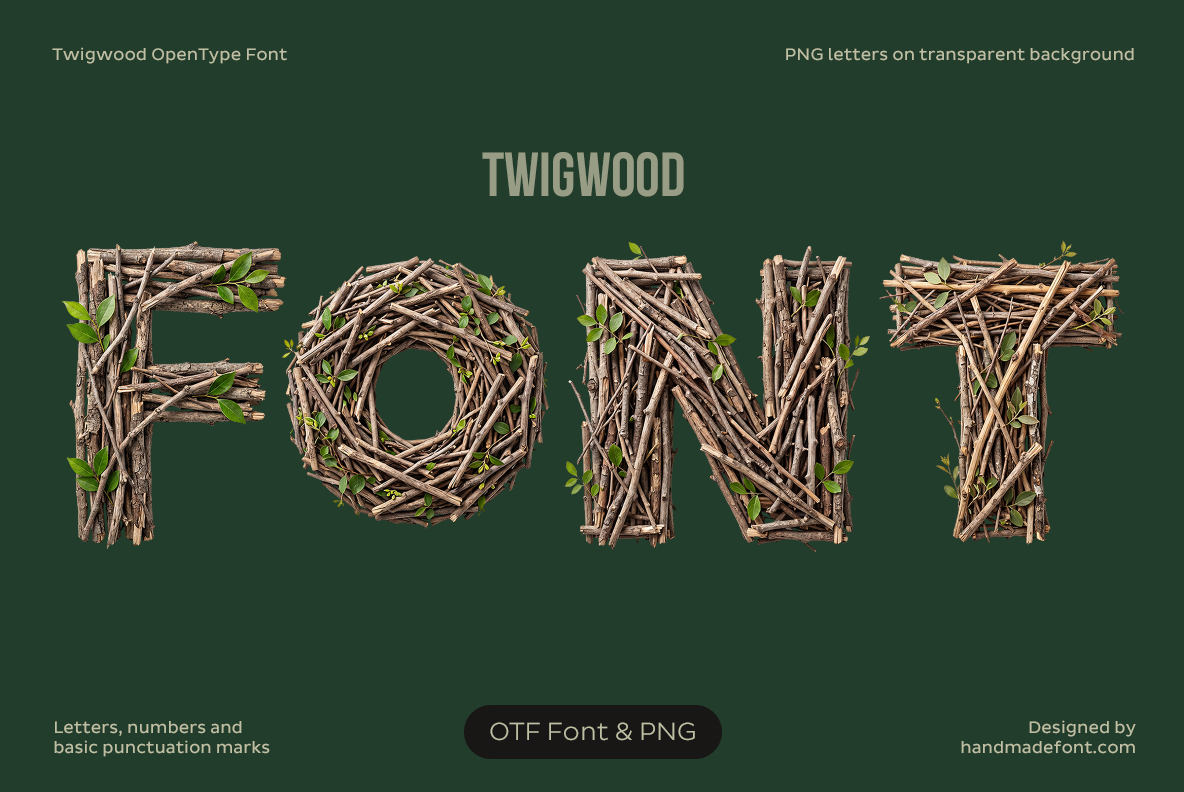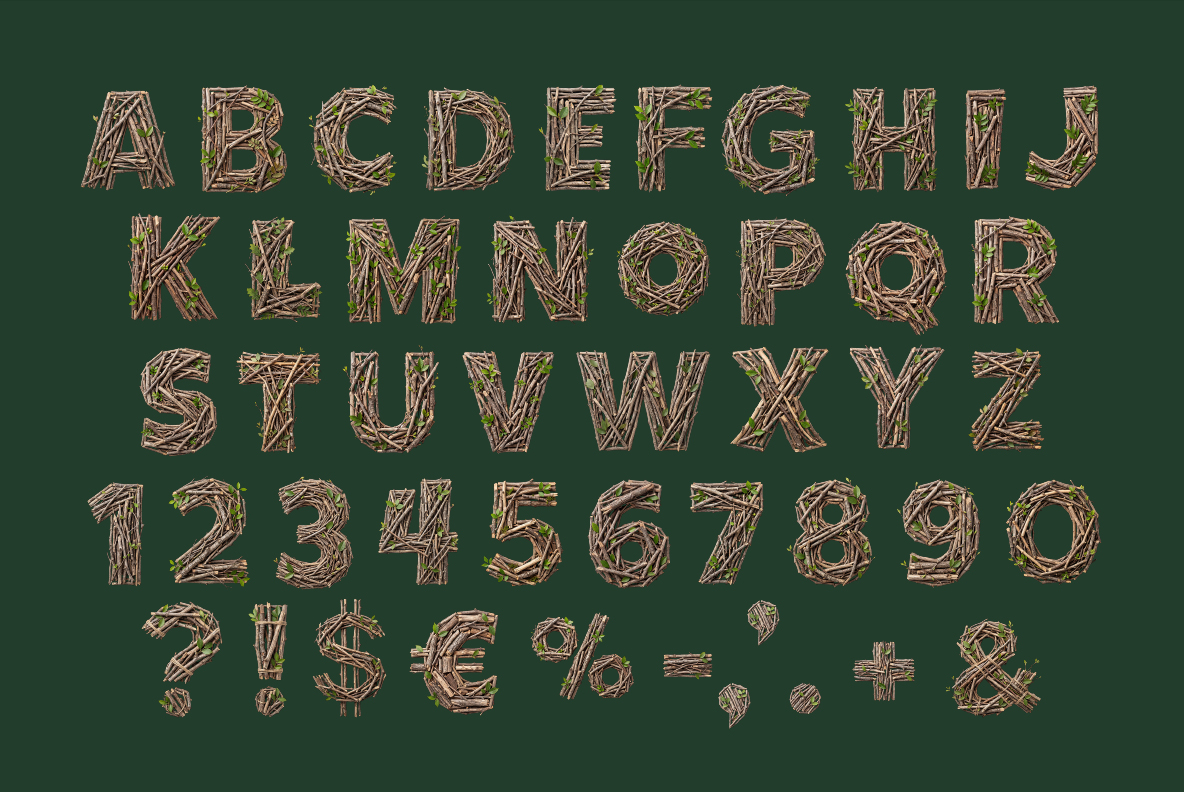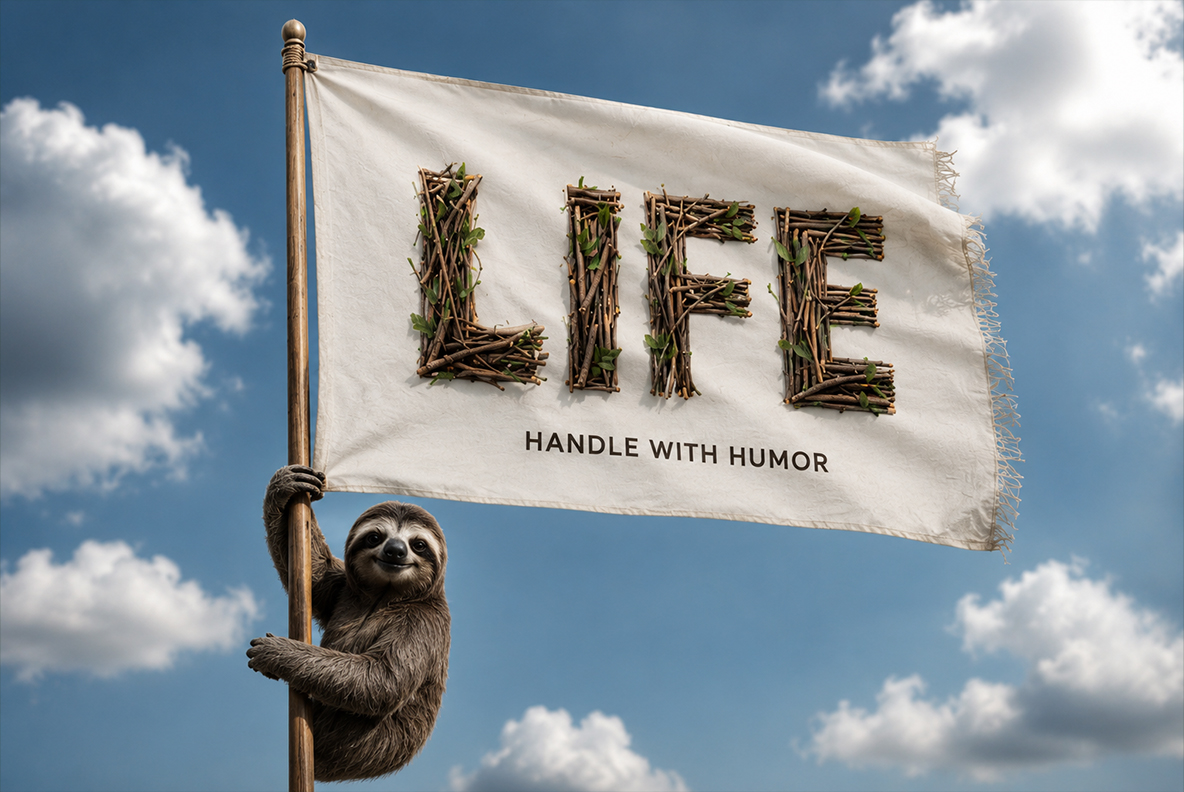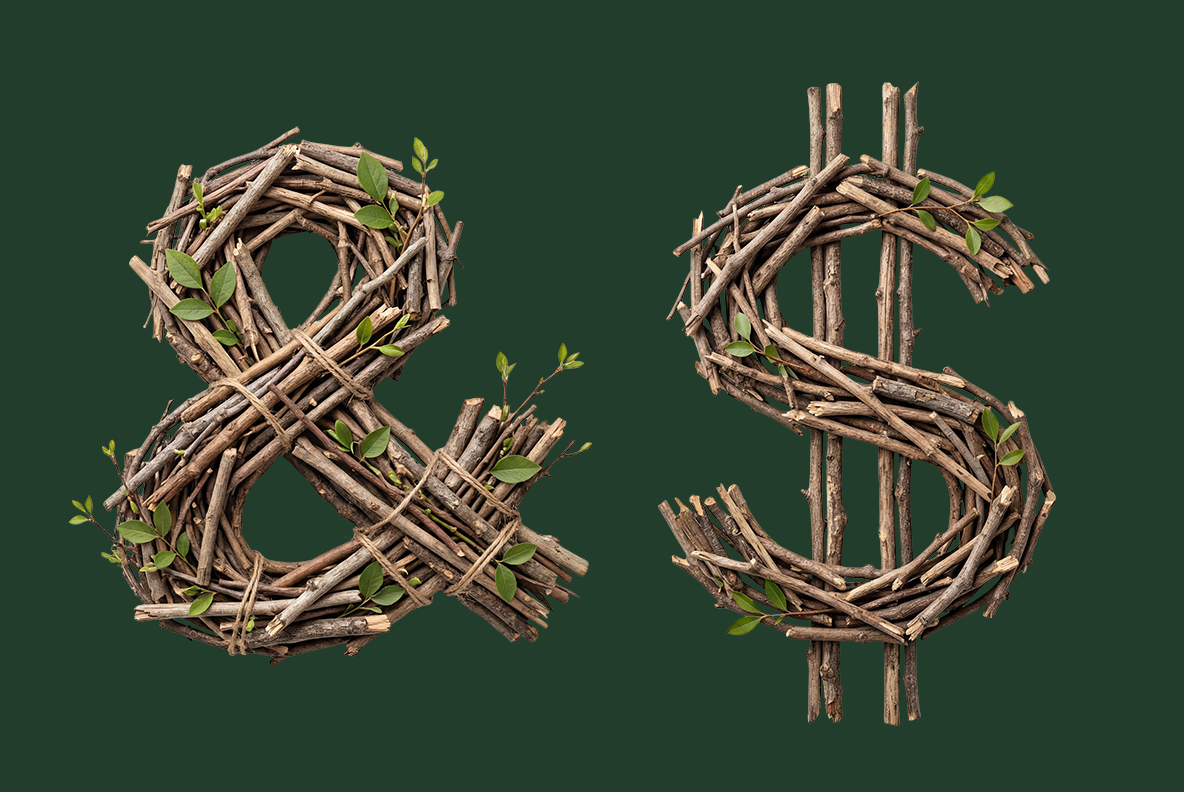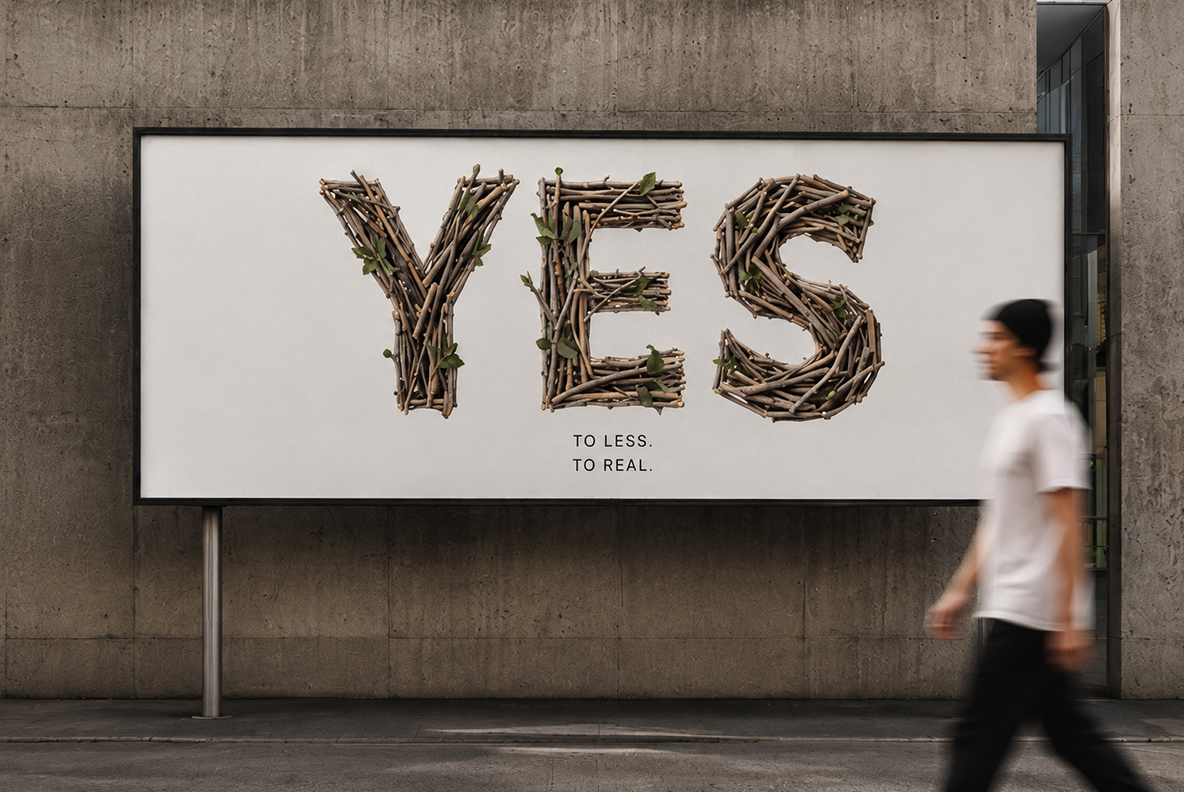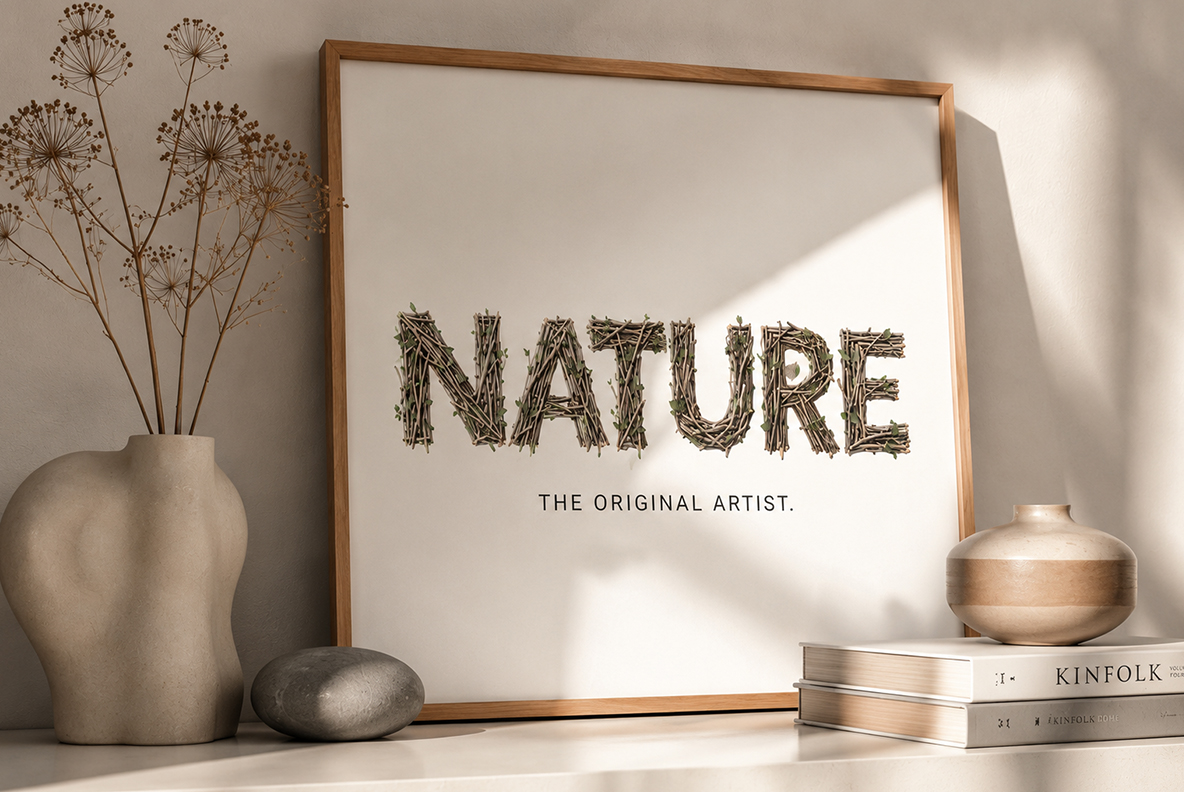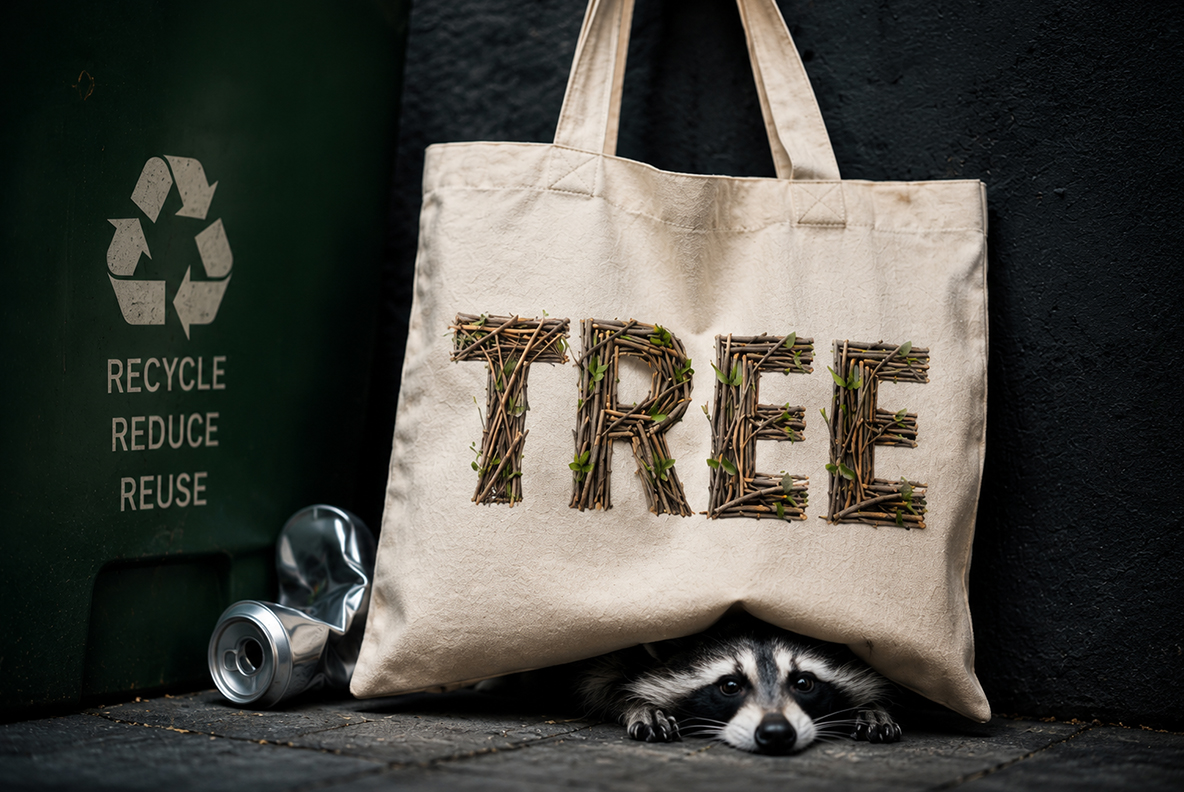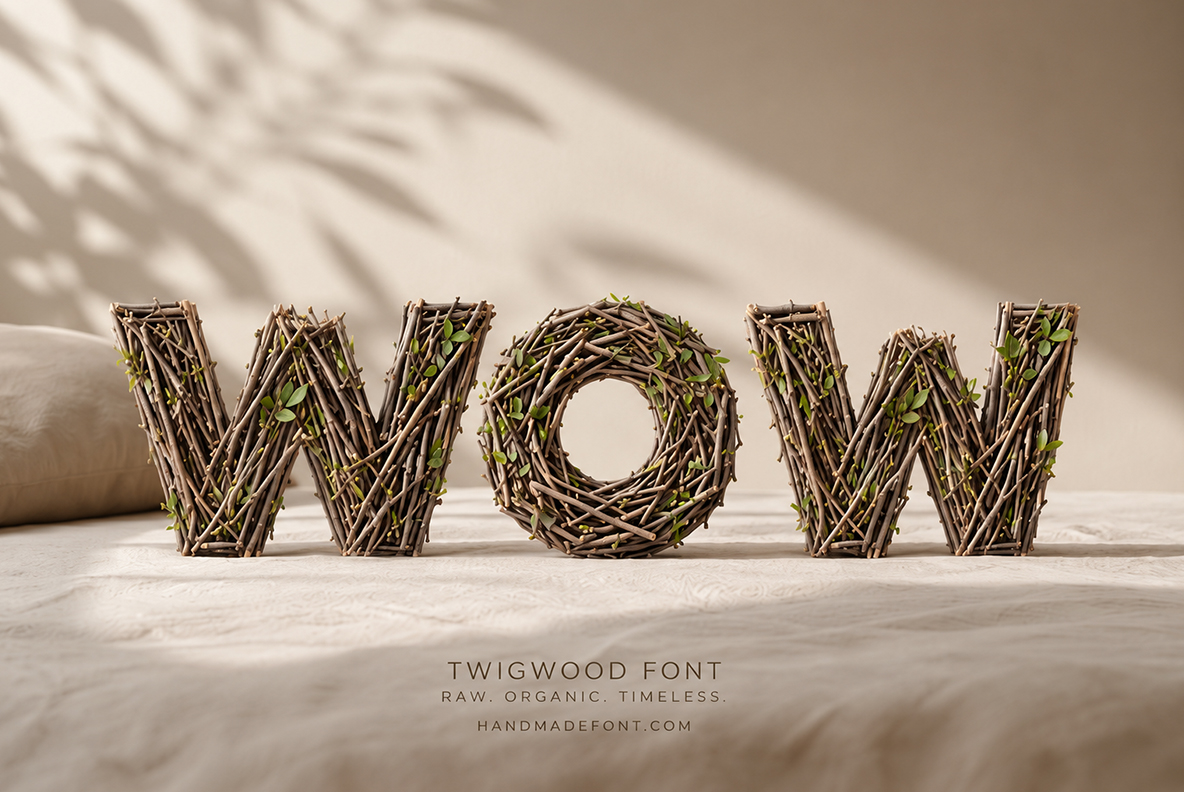
Twigwood Font. Branch out your designs!
Capitals bundled from dozens of thin grey branches, crossing at every angle with the gaps left open. Small green sprigs push out along the edges, and snapped ends show pale raw wood. It suits eco brands, garden and farm shops, festival posters and any layout that wants to look gathered rather than printed.
Woven from a hundred thin twigs
Each capital is bundled, of course, rather than carved. Dozens of thin grey branches cross at every angle, and the gaps between them stay open. So you can see straight through the thickest strokes in places. Some twigs even overshoot the corners and stick out. Because the twigs are laid by hand, no two letters weave the same way. The silhouette still holds, though, since a firm sans sits underneath.
Fresh green sprigs breaking through
Small green leaves also push out along the edges. They stay sparse rather than decorative, so the wood keeps the lead role. That single spot of green likewise stops the palette going flat grey. Ends of snapped branches show pale raw wood, meanwhile, which reads as freshly gathered. Nothing here looks sprayed on or stuck flat. Up close, besides, the bark texture is genuinely rough.
Animated preview showing letters of the Twigwood Font being typed.
Twigwood Font for eco brands and quiet luxury
Eco and slow-living brands take the Twigwood Font first, naturally. Look below for a canvas tote, a framed print, a flag, a tee and a book cover. Beyond that, it fits farm shops, garden centres, festival posters and craft packaging. On warm cream it looks calm, while on forest green it turns almost editorial. So big and sparse beats small and busy here.
Forest green cover artwork spelling FONT in the Twigwood Font.
Letters, numerals and symbols of the Twigwood Font on a dark green ground.
White flag mockup with a short word set in the Twigwood Font against the sky.
Ampersand and dollar sign woven from twigs in the Twigwood Font.
White street billboard with a three-letter headline in the Twigwood Font.
Close-up of the branches, bark and small leaves used in the Twigwood Font.
Framed print on a shelf with a single word set in the Twigwood Font.
Canvas tote bag mockup with a short word printed in the Twigwood Font.
Three standing letters of the Twigwood Font photographed on pale linen.
Cream t-shirt back print with a short word set in the Twigwood Font.
Book cover mockup in a forest with numerals set in the Twigwood Font.
Letters A to D and numerals 1 to 4 of the Twigwood Font on a transparent background.